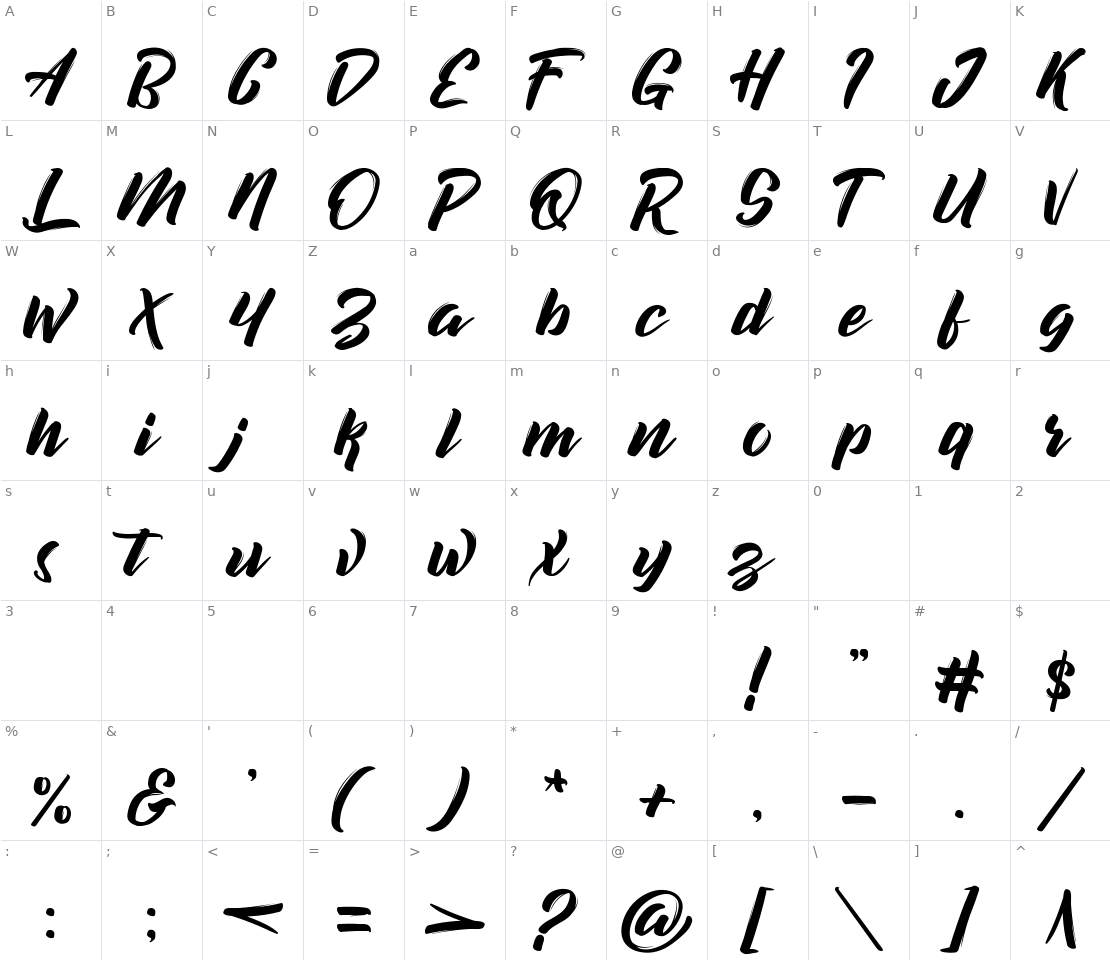
Decalled Script
Decalled Script is a thick, energetic brush script from semuthitam with bold strokes that feel fast and physical, like ink laid down in a single confident pass. The letterforms carry a casual, expressive quality that keeps things lively without losing legibility, making it a strong pick for posters, packaging, and headlines that need to feel hand-painted and full of movement.